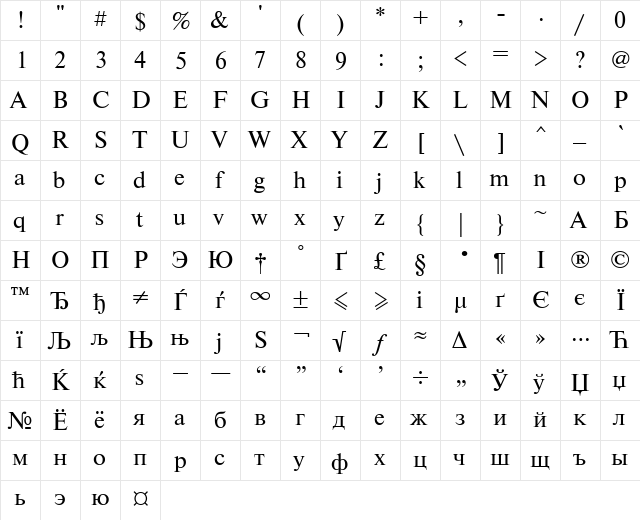
NewtonMACCTT Regular
Design Context for NewtonMACCTT Typeface
NewtonMACCTT takes a measured approach to typography — its balanced proportions and neutral character make it a reliable workhorse for both digital and print work.